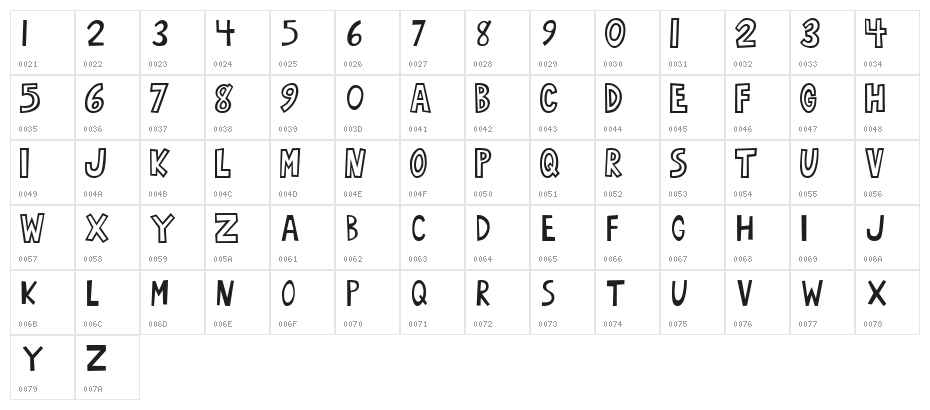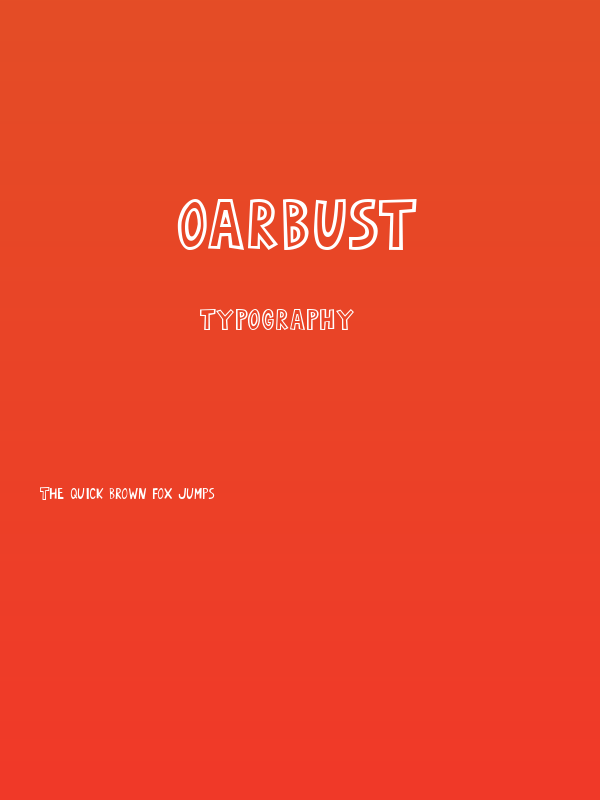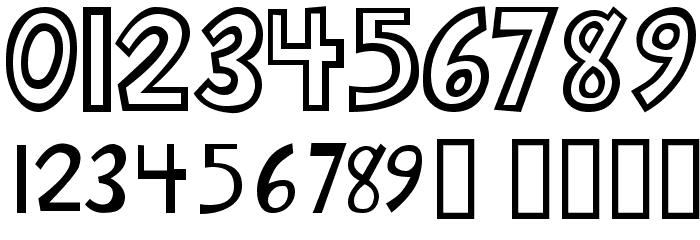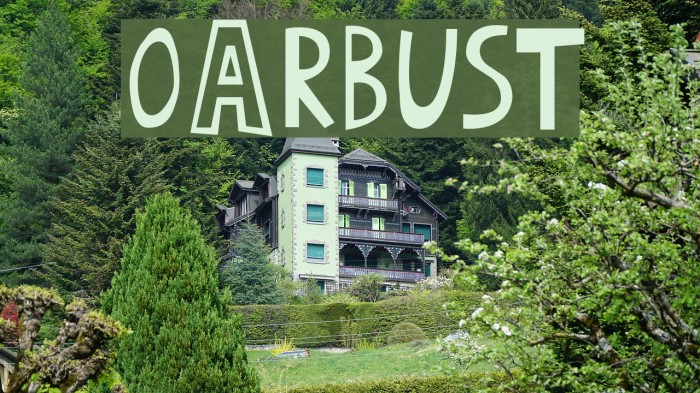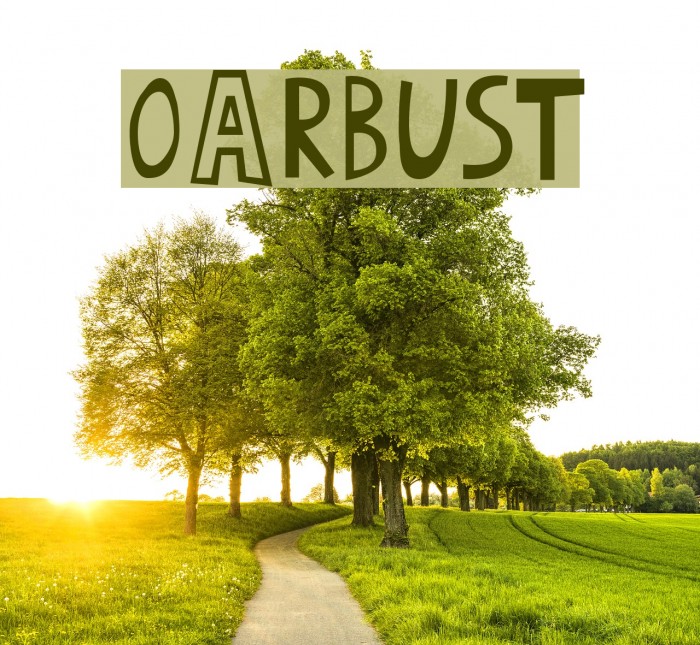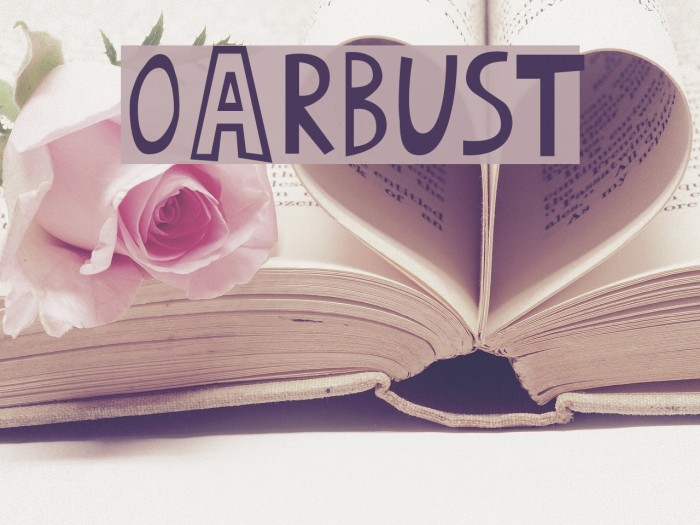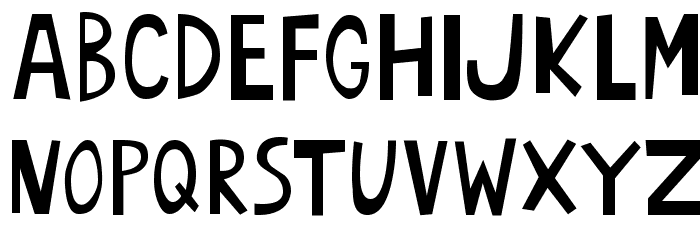
oArbust Font
oArbust Description
This font features a playful and bold design with a hand-drawn aesthetic. The uppercase letters are characterized by thick, uneven strokes that give a whimsical and informal feel. The lowercase letters maintain this playful style, with a slightly more condensed appearance. The numbers are bold and consistent with the overall style, ensuring readability while maintaining the font's unique character. Special characters are designed to match the boldness and playful nature of the alphabet, making them suitable for creative and informal contexts. The font's distinct style makes it ideal for projects that require a fun and engaging visual element.
| Overall Style | Playful, Whimsical |
| Use Case | Headlines, Posters, Branding |
| Proposed Projects | Ideal for children's books, playful branding, posters, and creative invitations. |